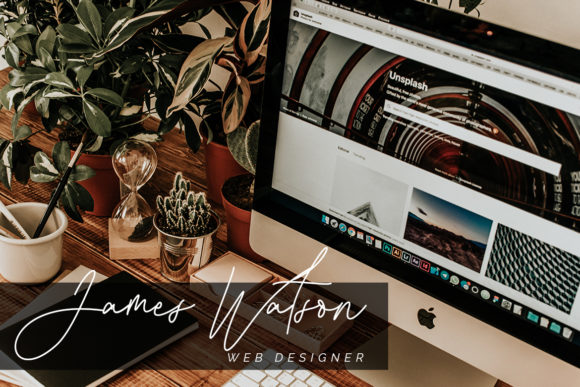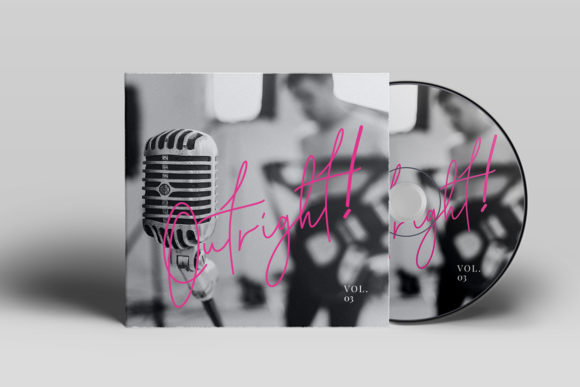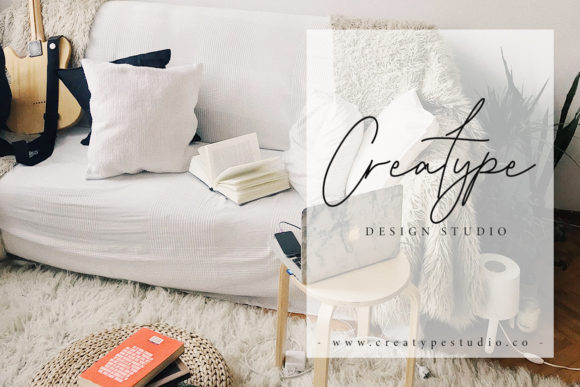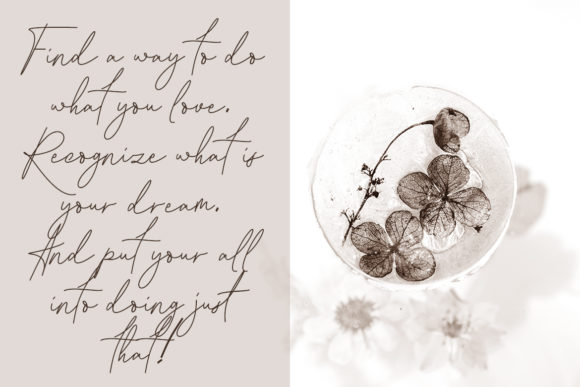
Introduction to Halmahera Font
Have you ever stumbled upon a design project where you just can’t seem to find the right font to make it pop? You’ve spent hours browsing through different options, but nothing seems to capture the essence of your creative vision. That’s exactly where the Halmahera Font comes in – a stunning signature handwritten font that will elevate any design project into a unique eye catcher.
Whether you’re a seasoned designer or just starting out, the Halmahera Font is a valuable resource that will take your creative projects to the next level. With its beautiful, high-quality design, this font is perfect for anyone looking to add a personal touch to their work. Plus, it’s completely free to download, making it an accessible design resource for designers of all levels.
Honest Review: Halmahera Font
I recently came across the Halmahera Font, and I must say it’s been a game-changer for my creative projects. This design resource has been a valuable addition to my toolkit, offering a high quality, versatile font that’s perfect for a wide range of applications.
- ✨ High-quality font with a unique and stylish design
- ✨ Suitable for use with a transparent background, allowing for maximum flexibility in design
While the Halmahera Font is an excellent resource, there are a few limitations to be aware of:
- ⚠️ Limited character set, which may be a problem for designers working on projects that require a wide range of characters
- ⚠️ Not suitable for use in very small sizes, as the font may become difficult to read
Overall, I’m thoroughly impressed with the Halmahera Font. Its unique design and high quality make it a valuable addition to any designer’s toolkit. While it may have some limitations, I believe it’s a worthwhile resource for designers looking to add some flair to their creative projects.
Tips for Getting the Most Out of Halmahera Font
For a transparent background, use the Halmahera Font on a design element with a transparent background. This will allow the font to blend seamlessly with other design elements. To use the Halmahera Font in a creative project, try combining it with other design elements, such as images or graphics, to create a unique and eye-catching design.
The Halmahera Font is suitable for a variety of design projects, including logos, business cards, and brochures. Its high-quality design makes it perfect for creative projects that require a professional and sophisticated look. With its transparent background, you can easily integrate the Halmahera Font into your design without worrying about background clashes.